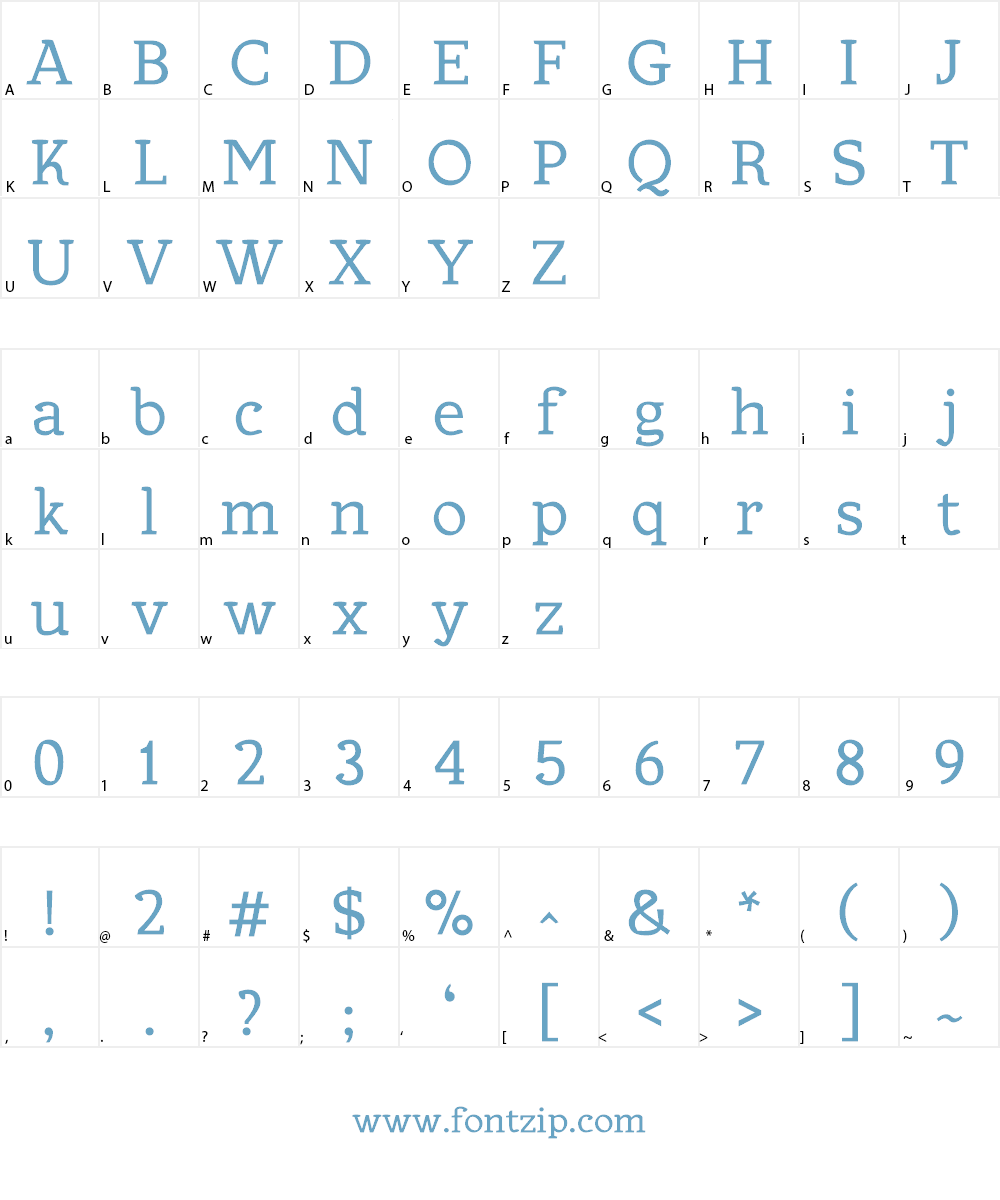
Allejo is a serif typeface conceived to be used mainly for editorial projects (like magazines and newspapers). Allejo has good readability in small sizes, but works great in bigger sizes too. A slab serif with low-constrast and large x-height.